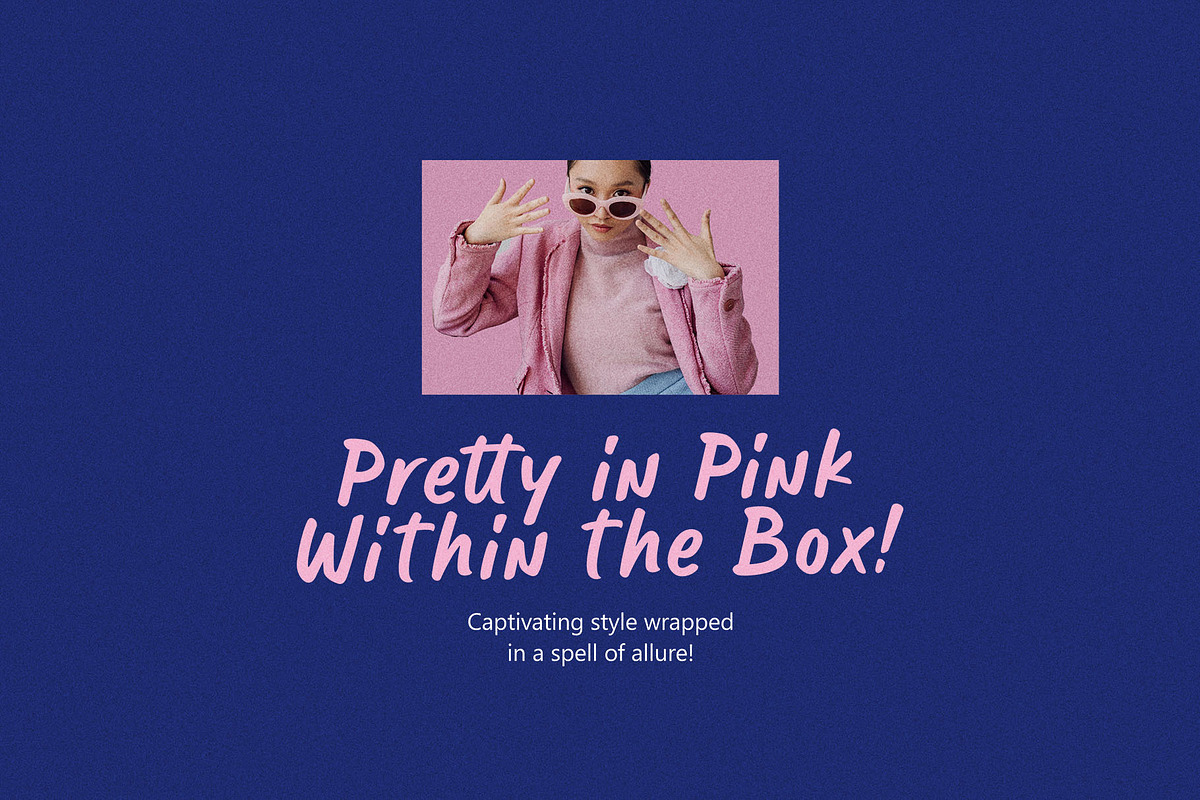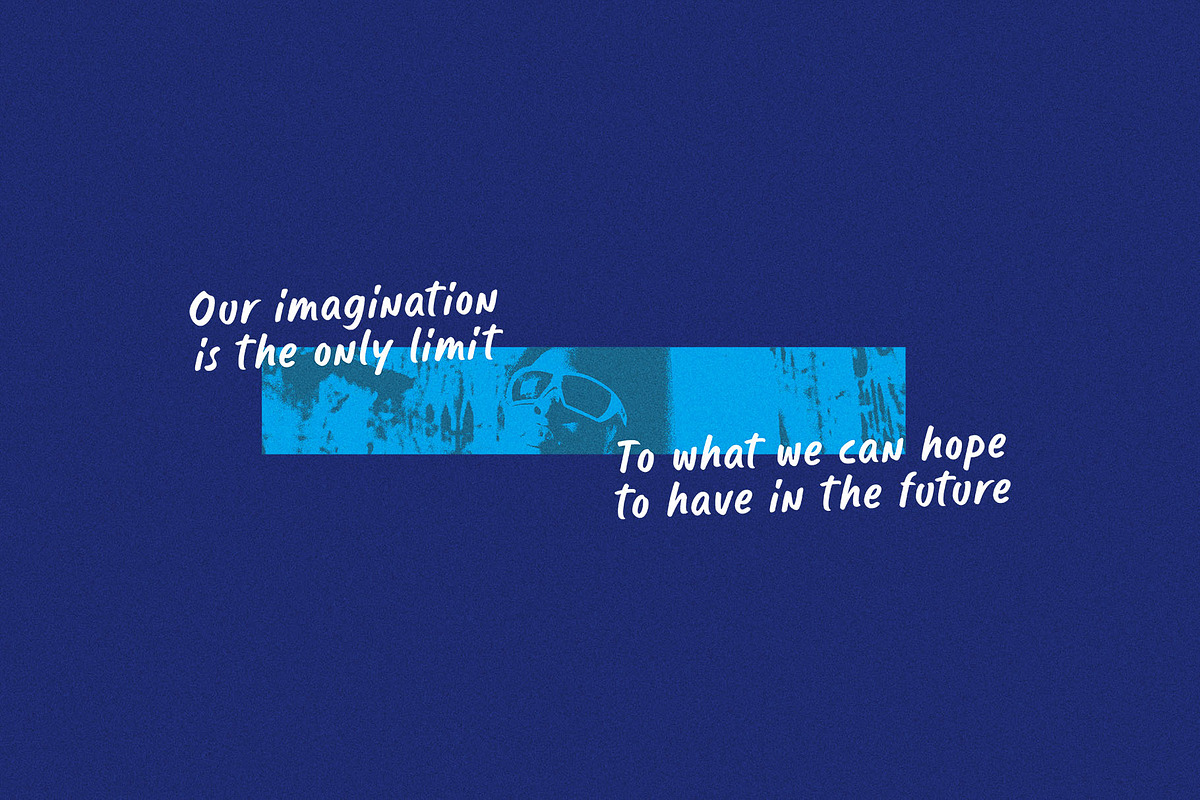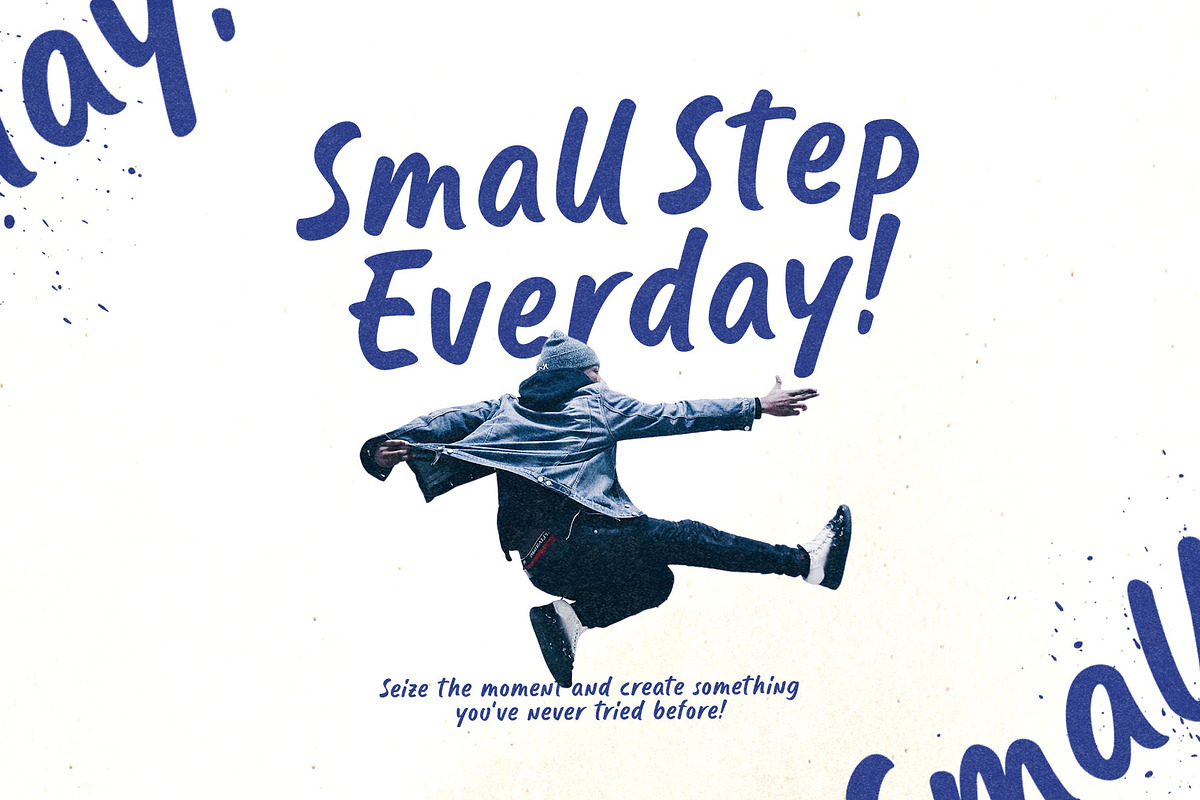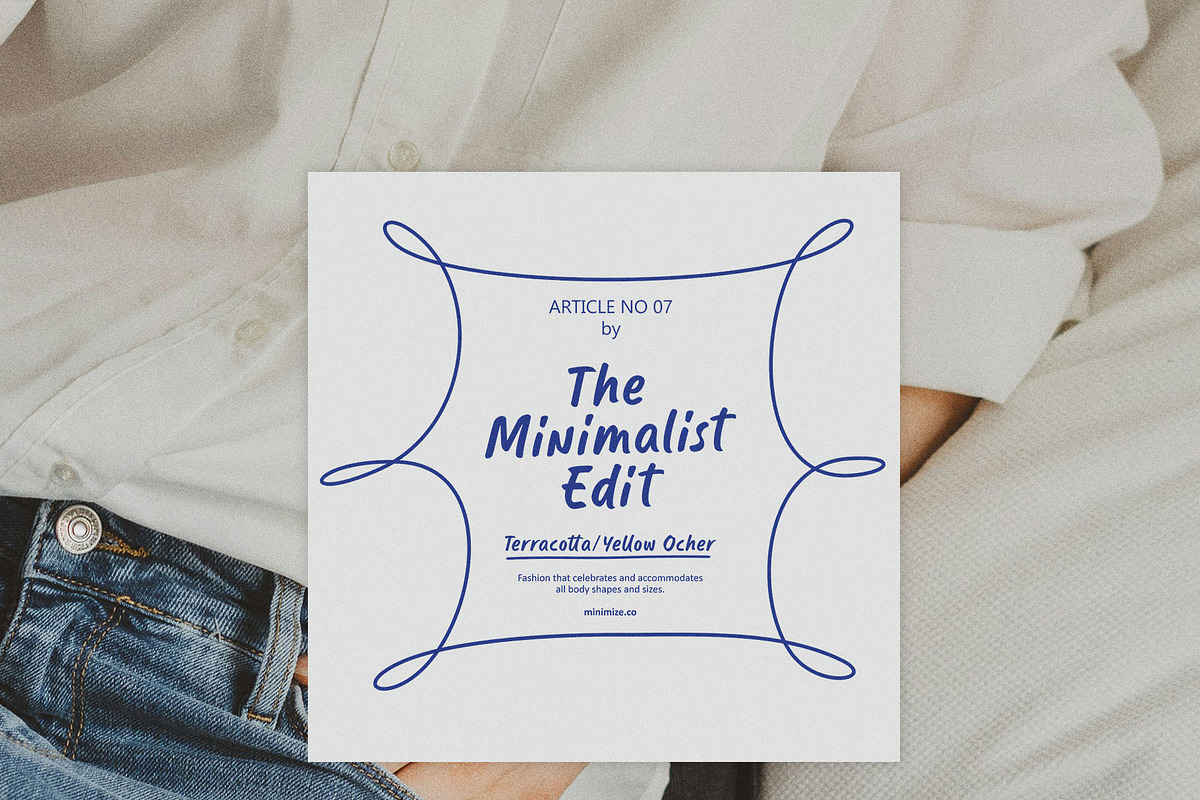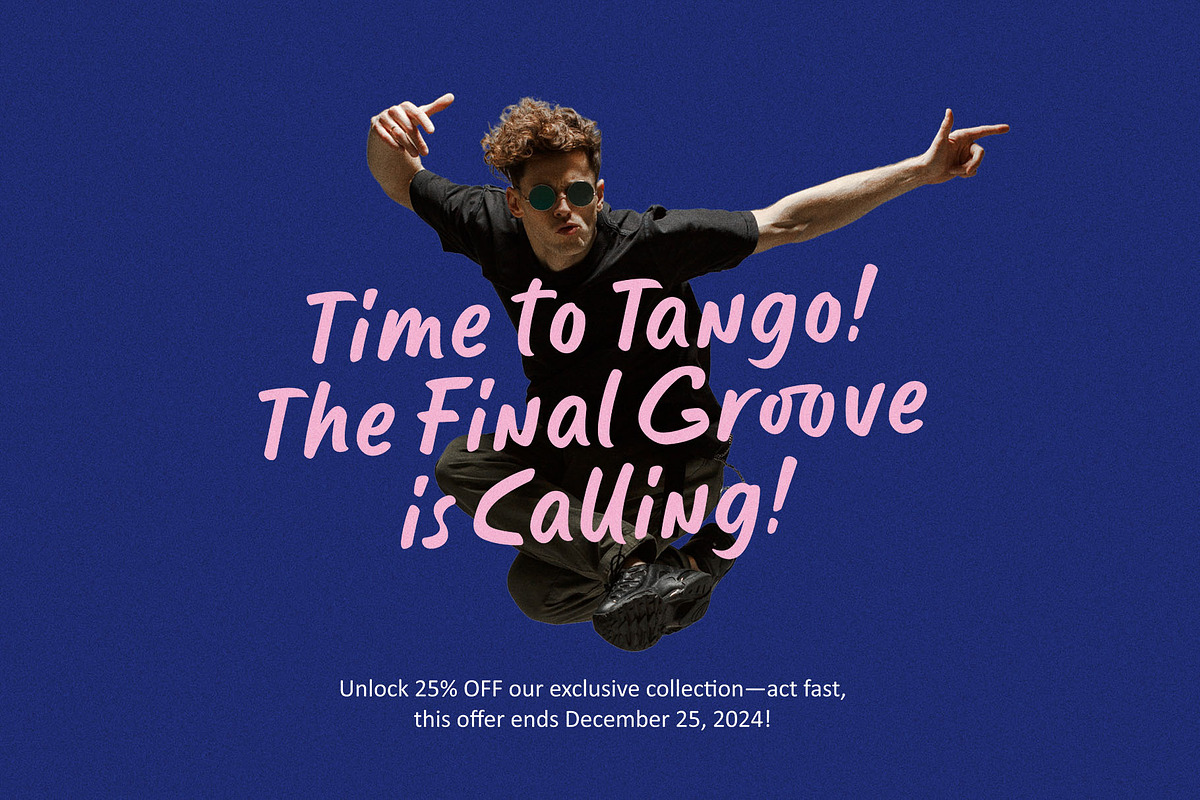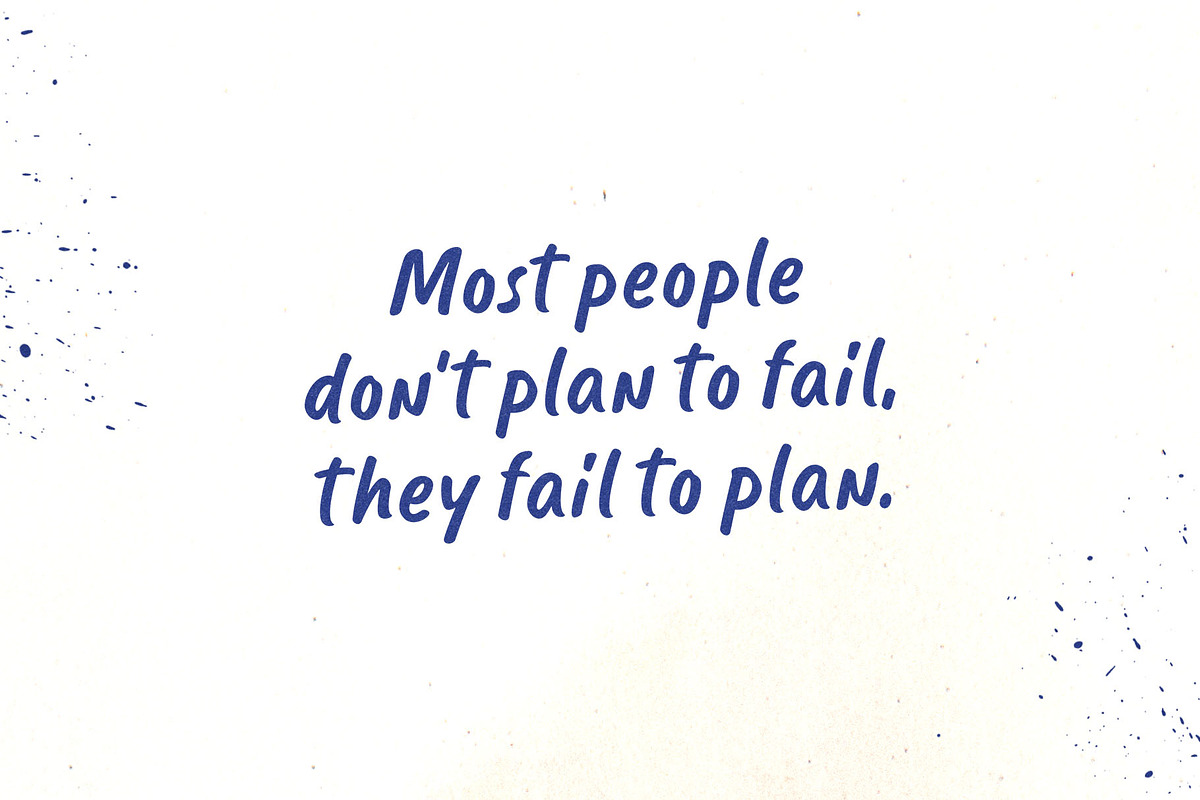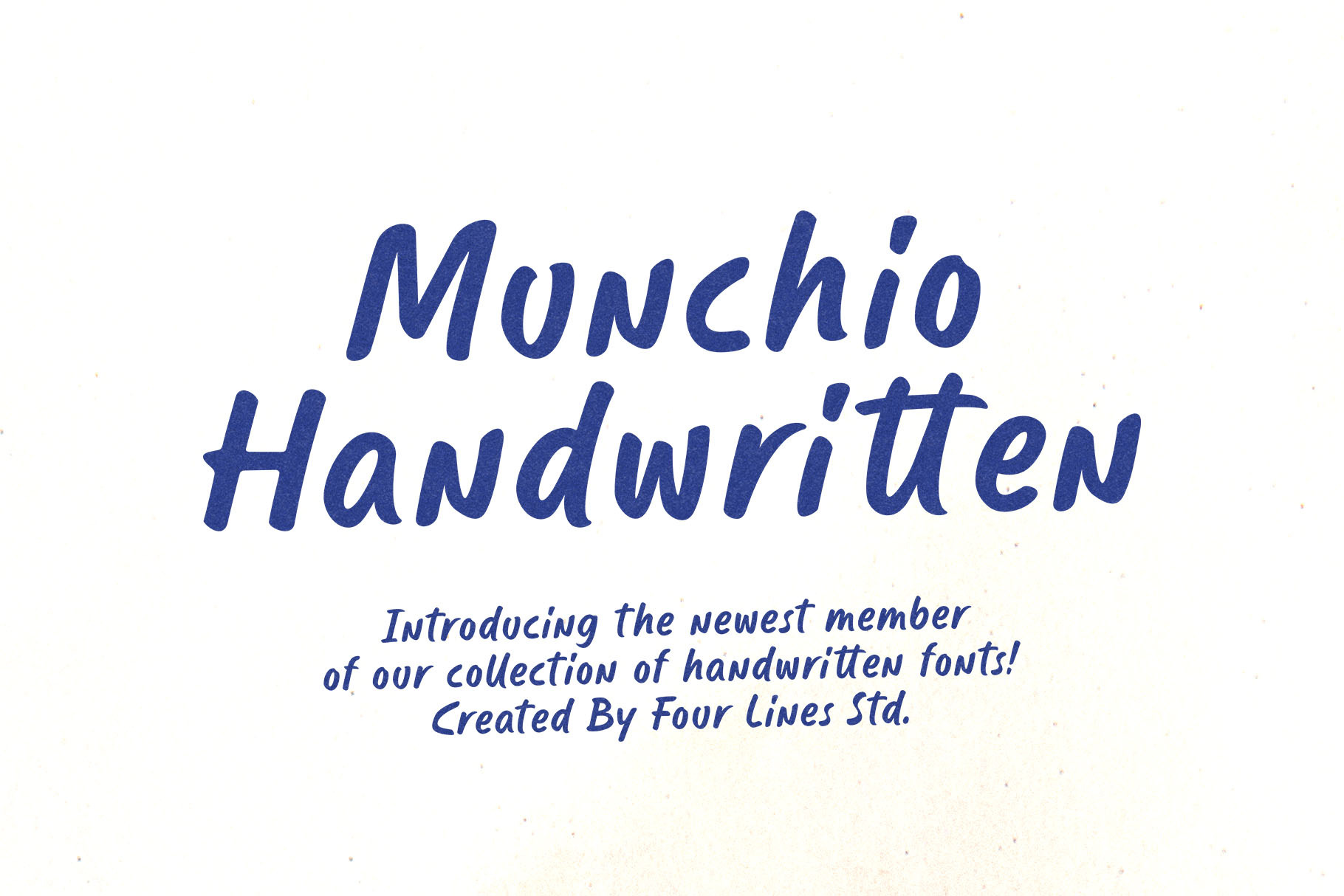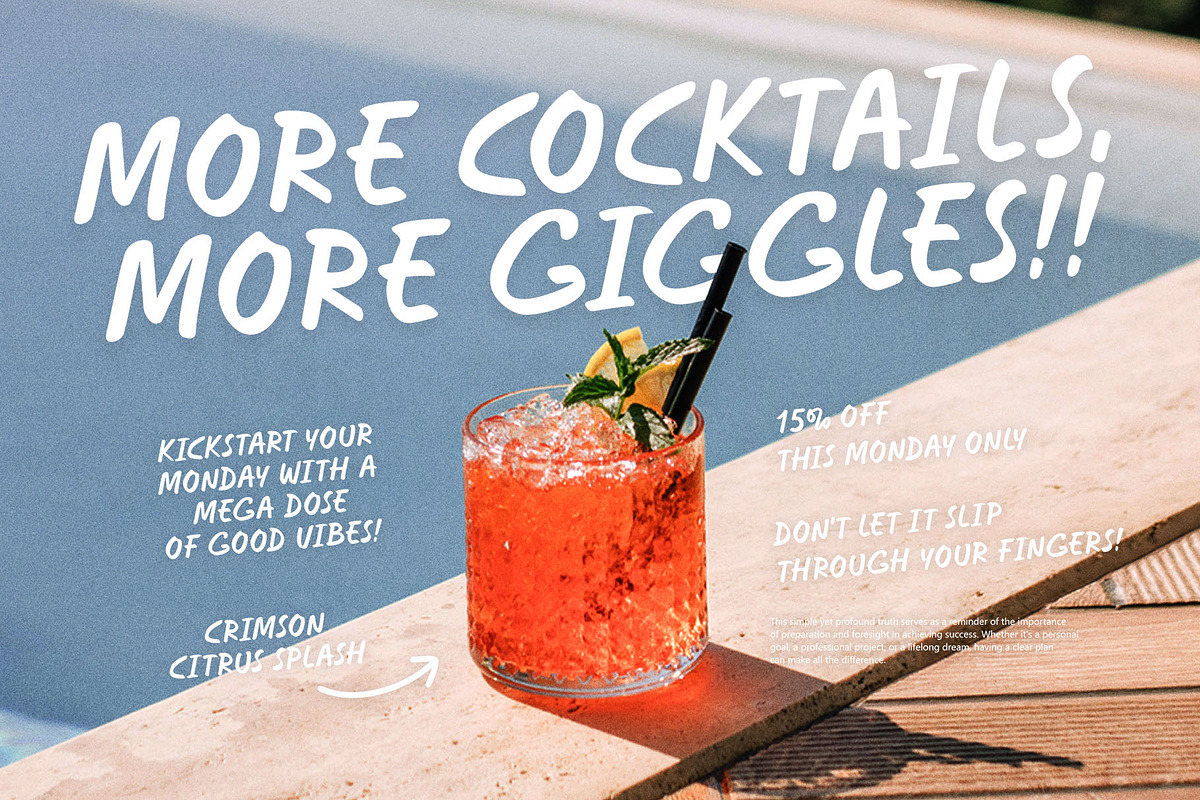
Munchio Handwritten Font
Introducing a handwritten font that blends casual with a bold, edgy flair. Inspired by the dynamic strokes of a marker, this font is designed to make your designs stand out. Whether you're working on branding, posters, or digital media, this font brings an authentic, playful touch that grabs attention and leaves a lasting impression.